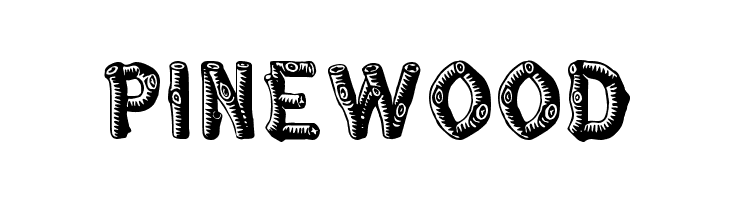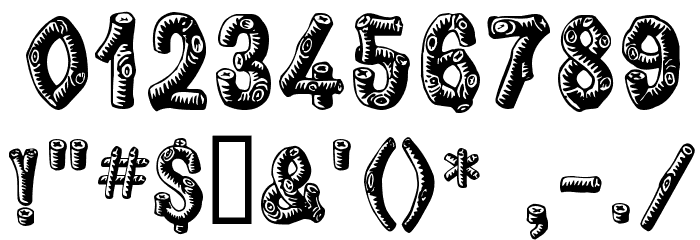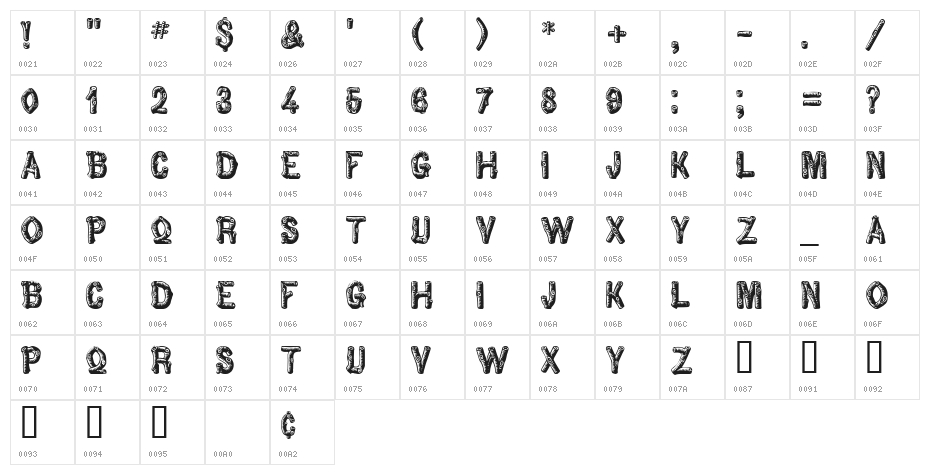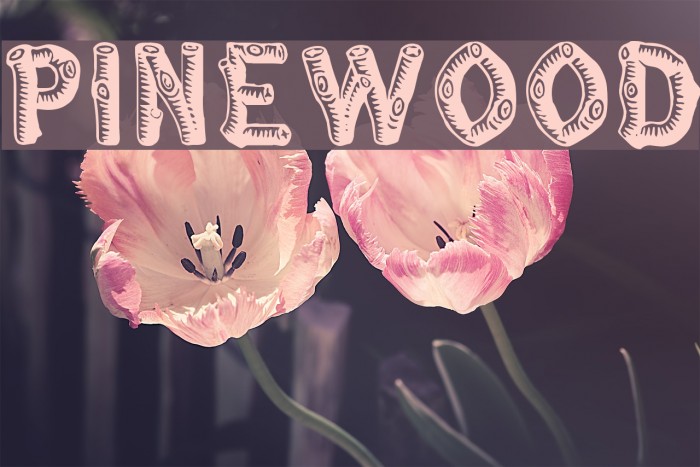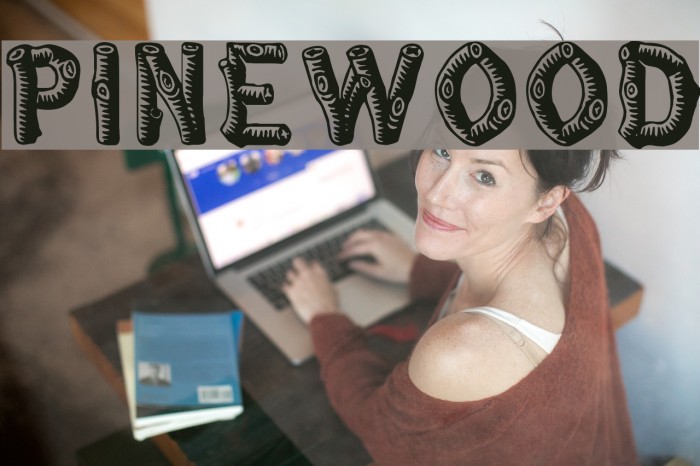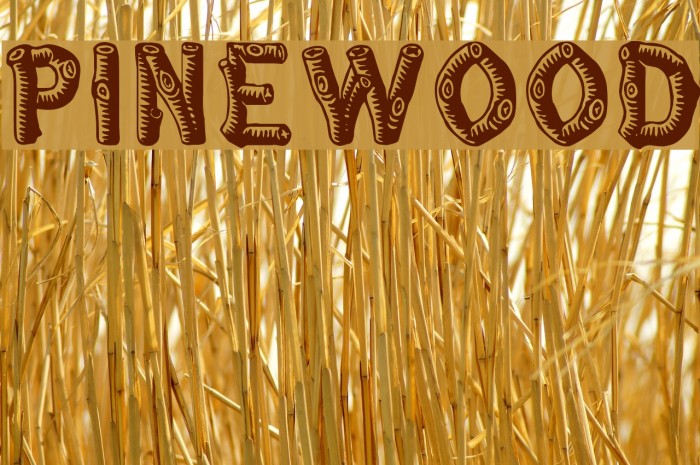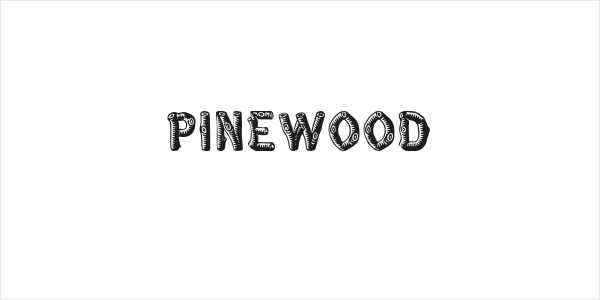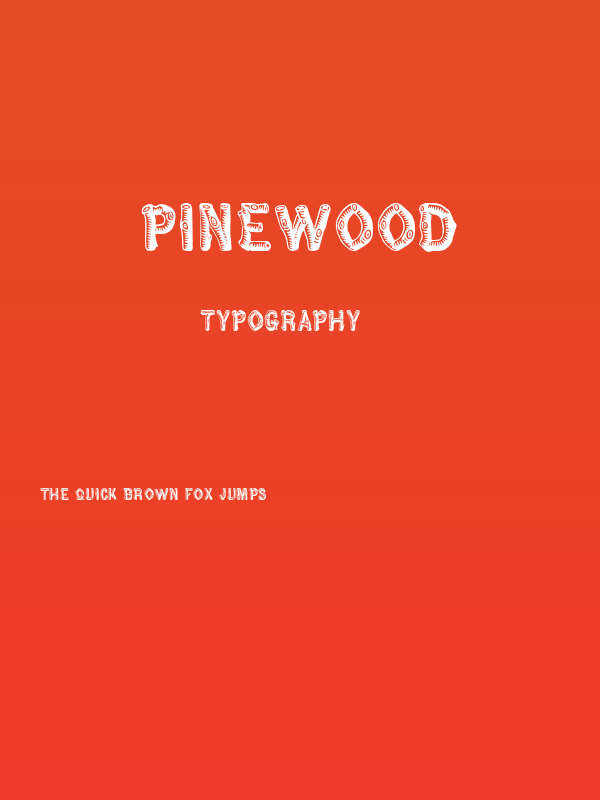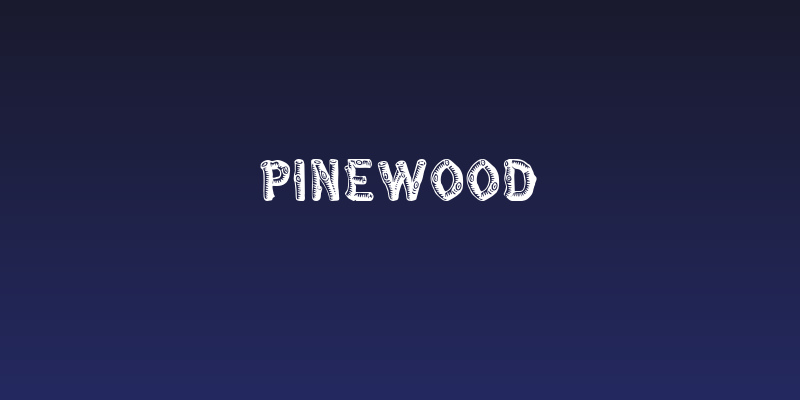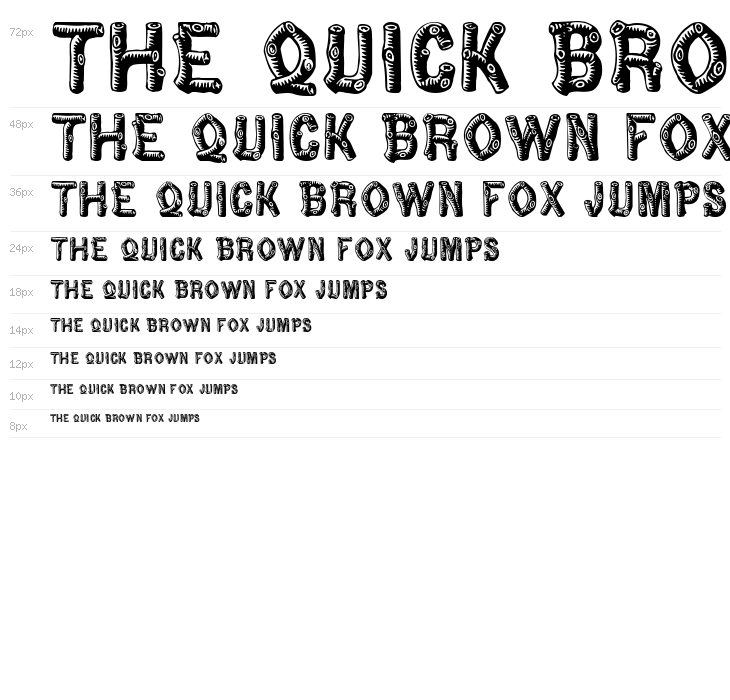
Pinewood Font
Pinewood Description
This font features a playful and whimsical design, characterized by its bold, rounded shapes and intricate patterns within each letter. The letters are reminiscent of carved wood or hand-drawn illustrations, giving it a unique, textured appearance. The font includes both uppercase and lowercase letters, numbers, and a variety of special characters. Its distinct style is eye-catching and adds a creative flair to any project. The detailed patterns within each character create a sense of depth and movement, making it ideal for projects that require a fun and engaging visual element.